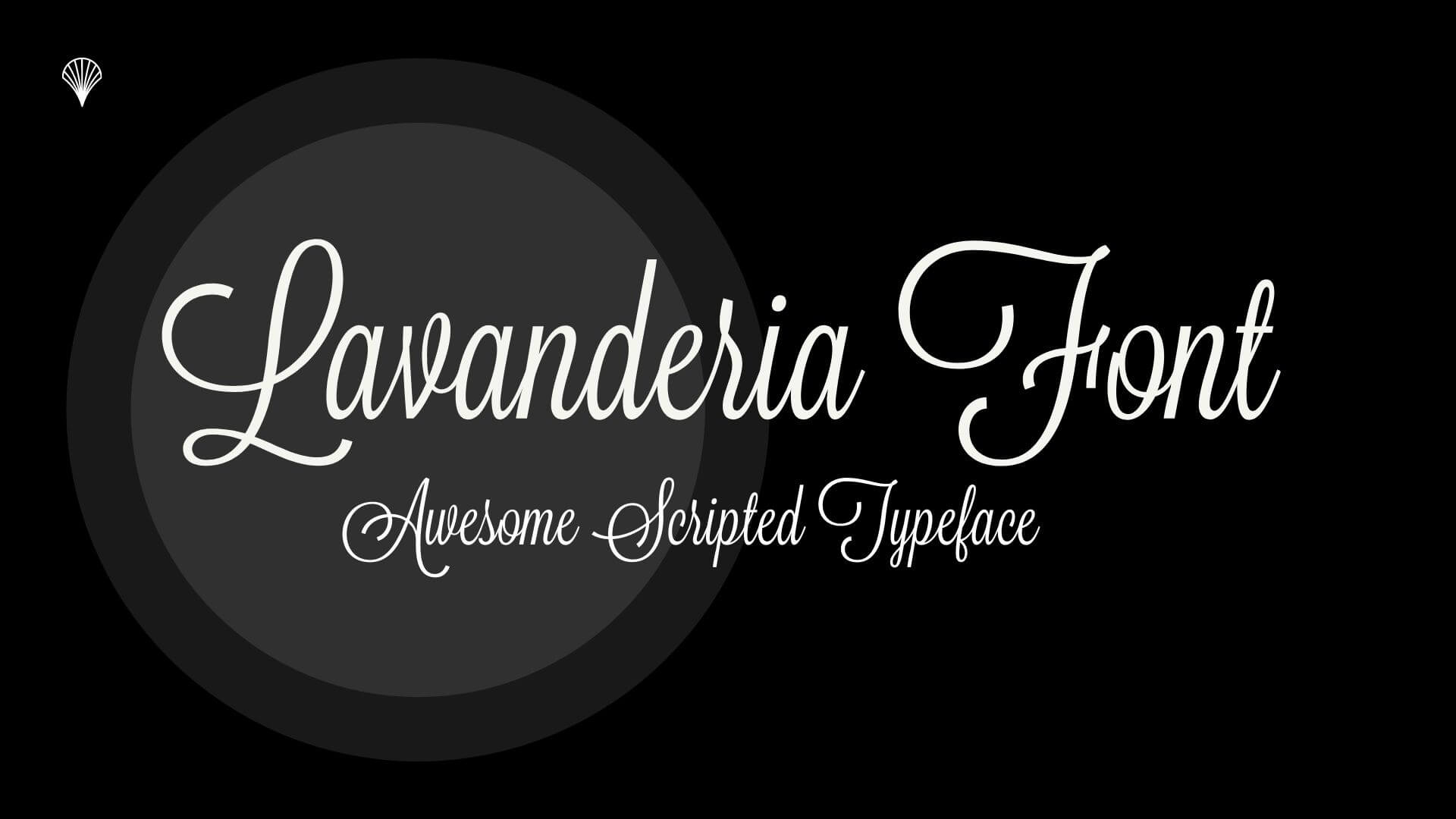
Lavanderia is a calligraphy font that belongs to the Script typeface. It is an ideal typeface to be used in designs where you want to add a fun element. The font originated by a California typeface designer James T. Edmondson.
Since the font came on the surface, it has been used in many places by different notable typeface designers and this is similar to woodlands font.
Lavanderia Font
NameLavanderia Font
DesignerJames T. Edmondson
FoundryLost Type Coroperation
TypeCalligraphy
Date Released2011
1. I absolutely love this font, except for the extra flourish that is added to an “e” when it falls at the end of a word. Drives me crazy because it makes it look like the letter “s” is added. (I am working in publisher.) It makes it hard to read. Any suggestions?